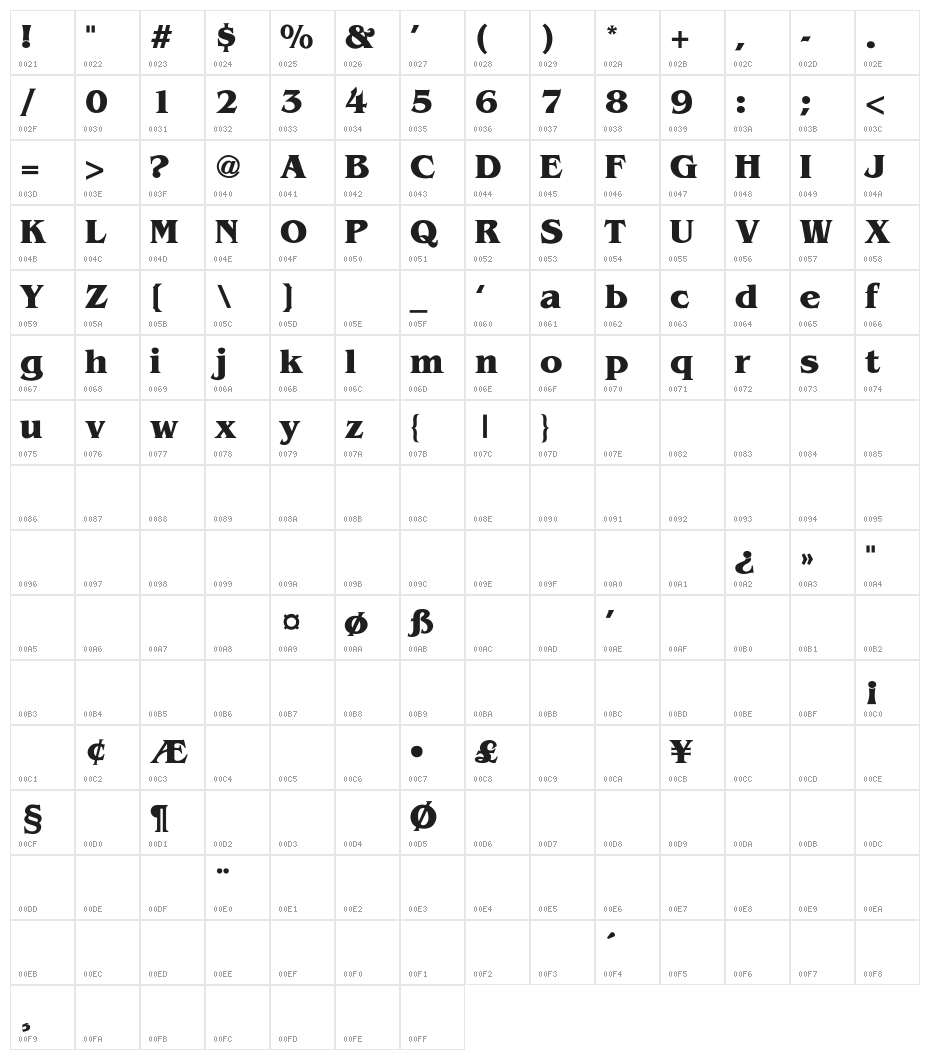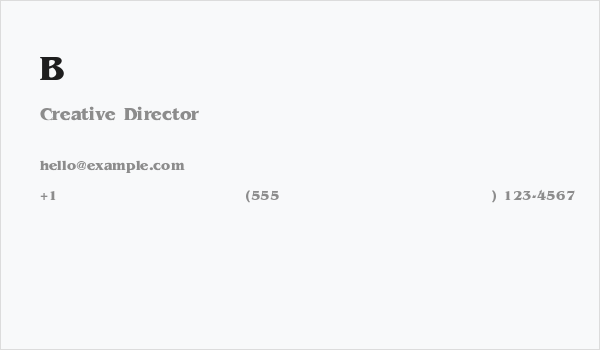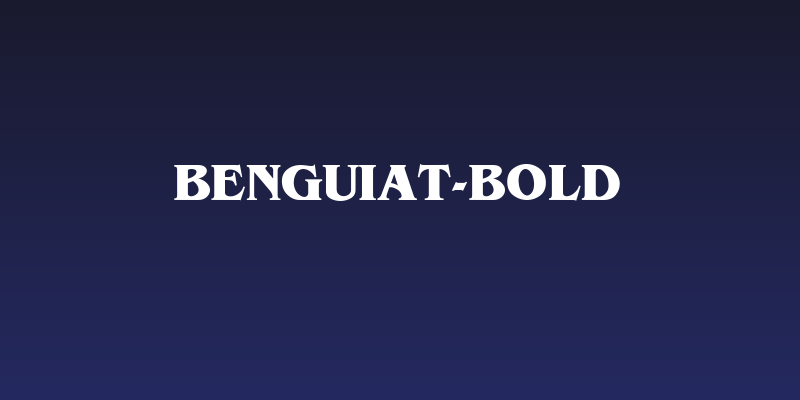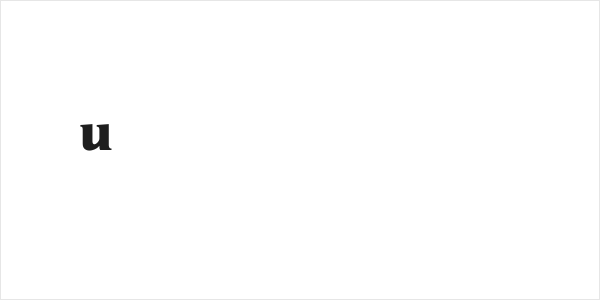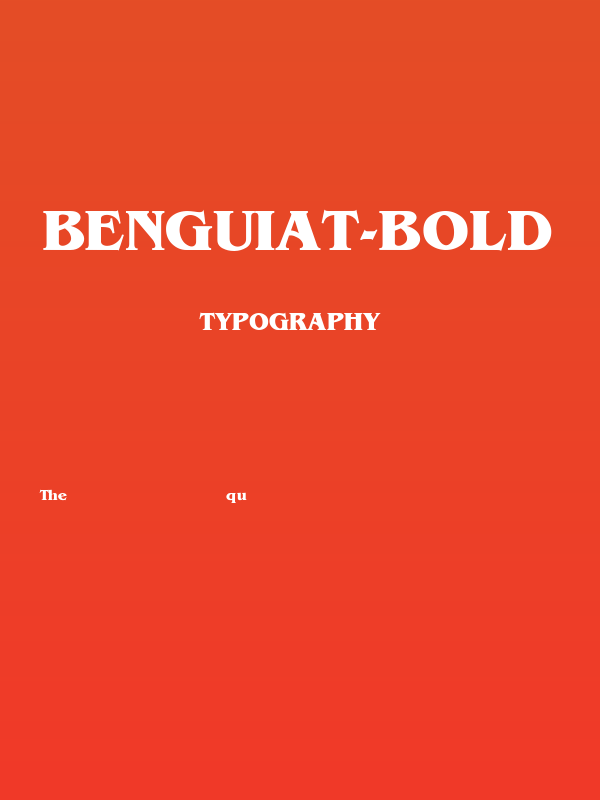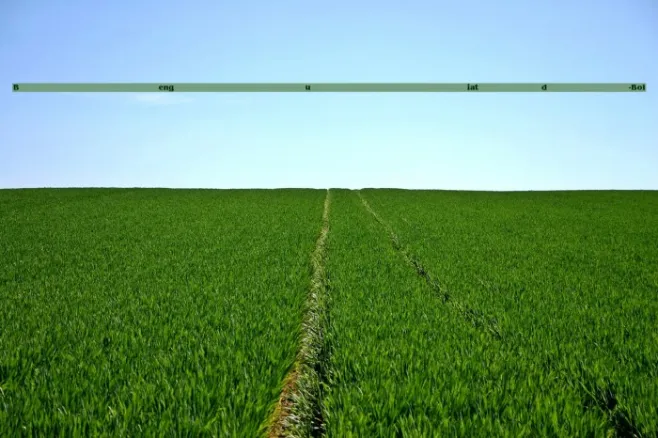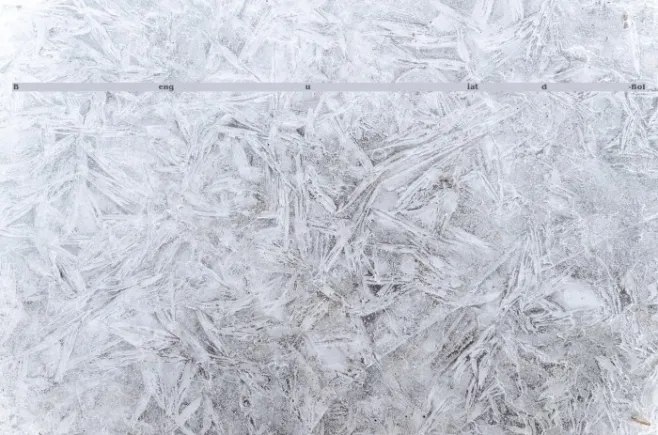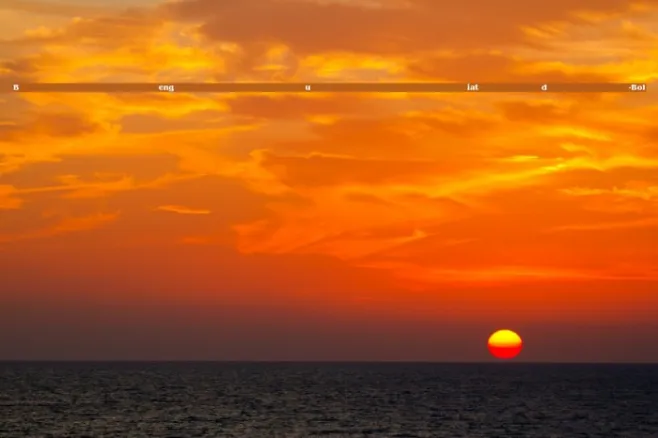
Benguiat-Bold Font
Benguiat-Bold Description
This font features a bold and dramatic style with a strong presence. The characters are well-defined with thick strokes and a slight serif that adds a touch of elegance. The uppercase letters are particularly striking, with a commanding appearance that makes them ideal for headlines or titles. The lowercase letters maintain the boldness while offering a more approachable feel. Numbers and special characters are consistent with the overall style, ensuring a cohesive look across different uses. The font's design is both classic and timeless, making it suitable for a variety of applications.
| Proposed Projects | Ideal for book covers, movie posters, branding, and editorial design. |